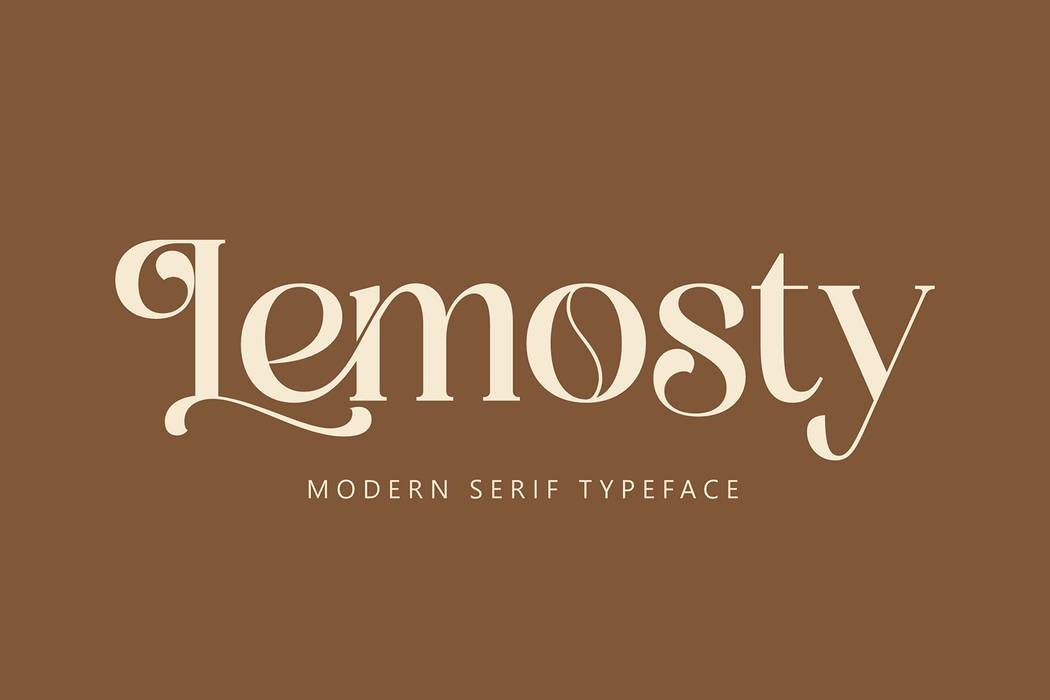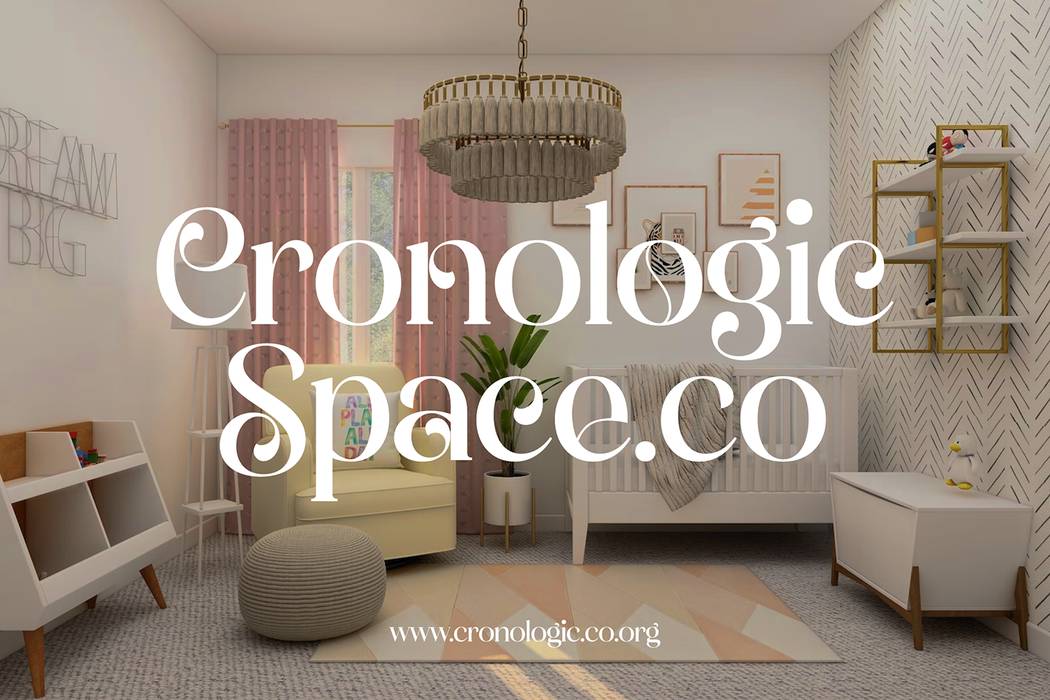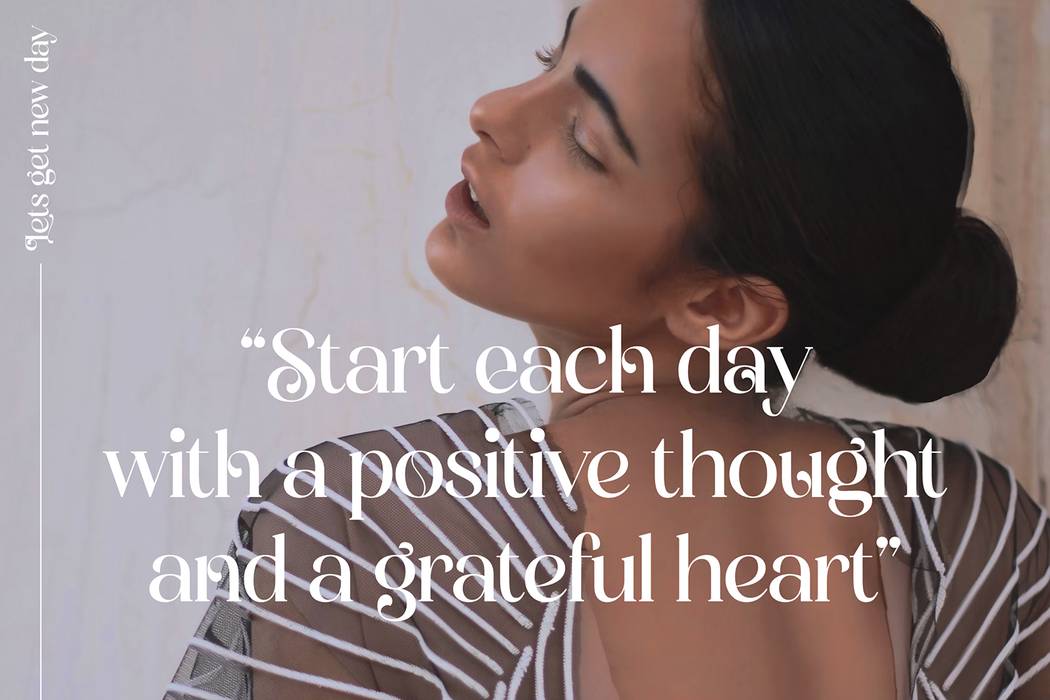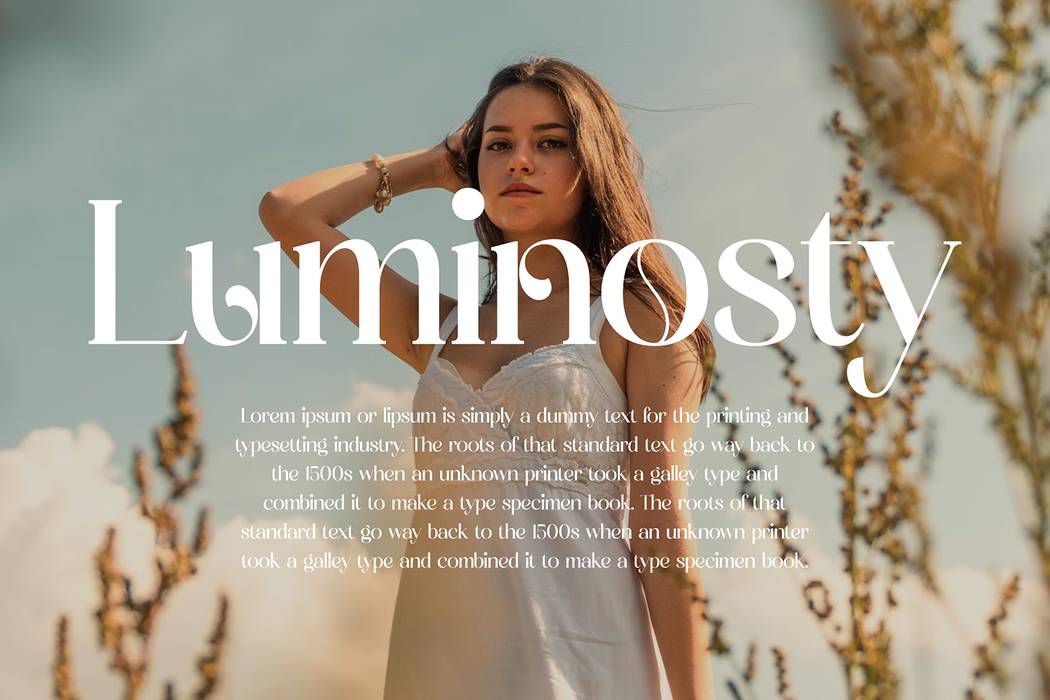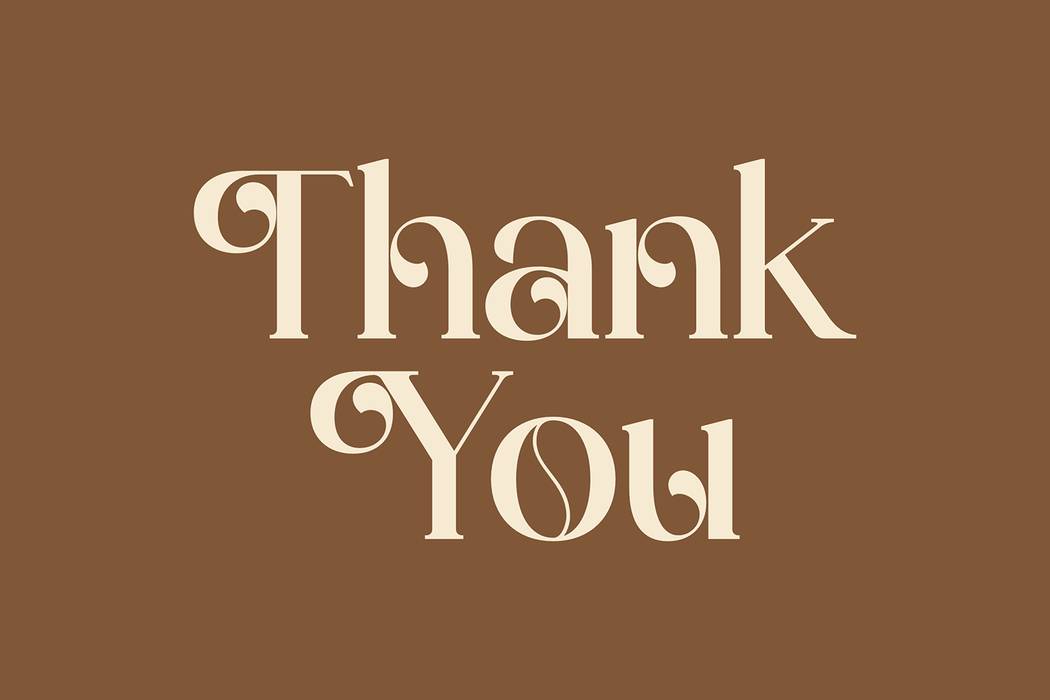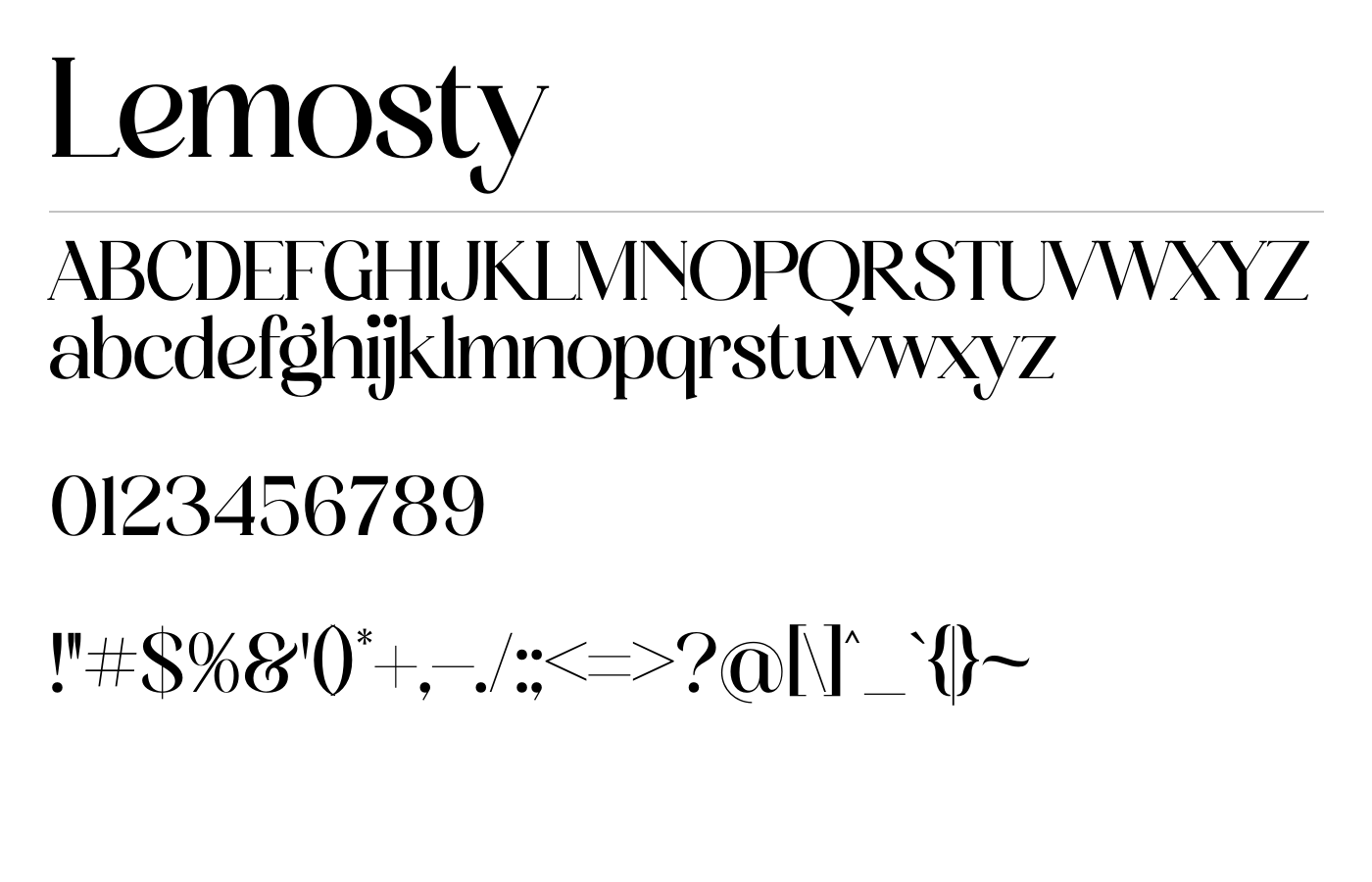
Lemosty is an elegant serif font characterized by its high contrast between thick and thin strokes, slender serifs, and refined letterforms that blend classic sophistication with a modern edge. Its tall x-height and delicate details make it perfect for luxury branding, editorial headlines, and fashion packaging where a sleek, stylish look is desired. This font’s graceful balance of sharpness and softness conveys a sense of refinement and professionalism, ideal for projects seeking a timeless yet contemporary appearance.
Lemosty Font
About Lemosty Font